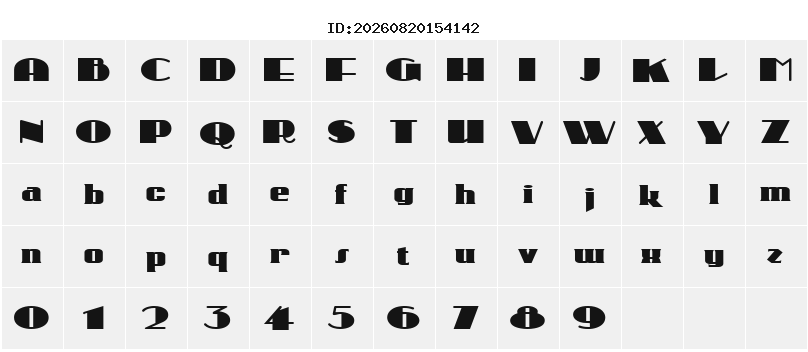
Sesquipedalian Alternates.ttf is a modern, elegant sans-serif font designed for ultimate readability and visual harmony. Perfect for branding, headlines, web design, and print materials.